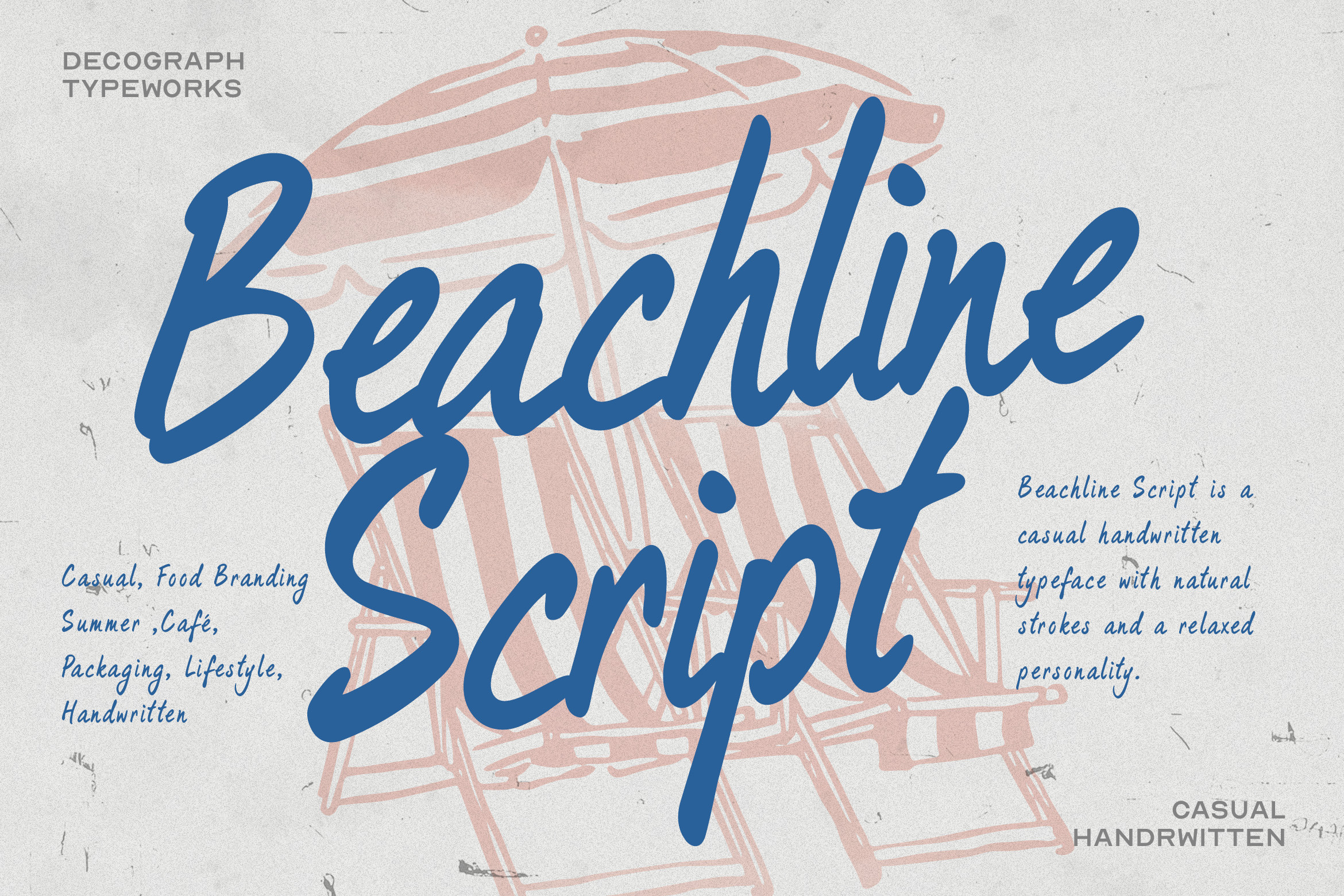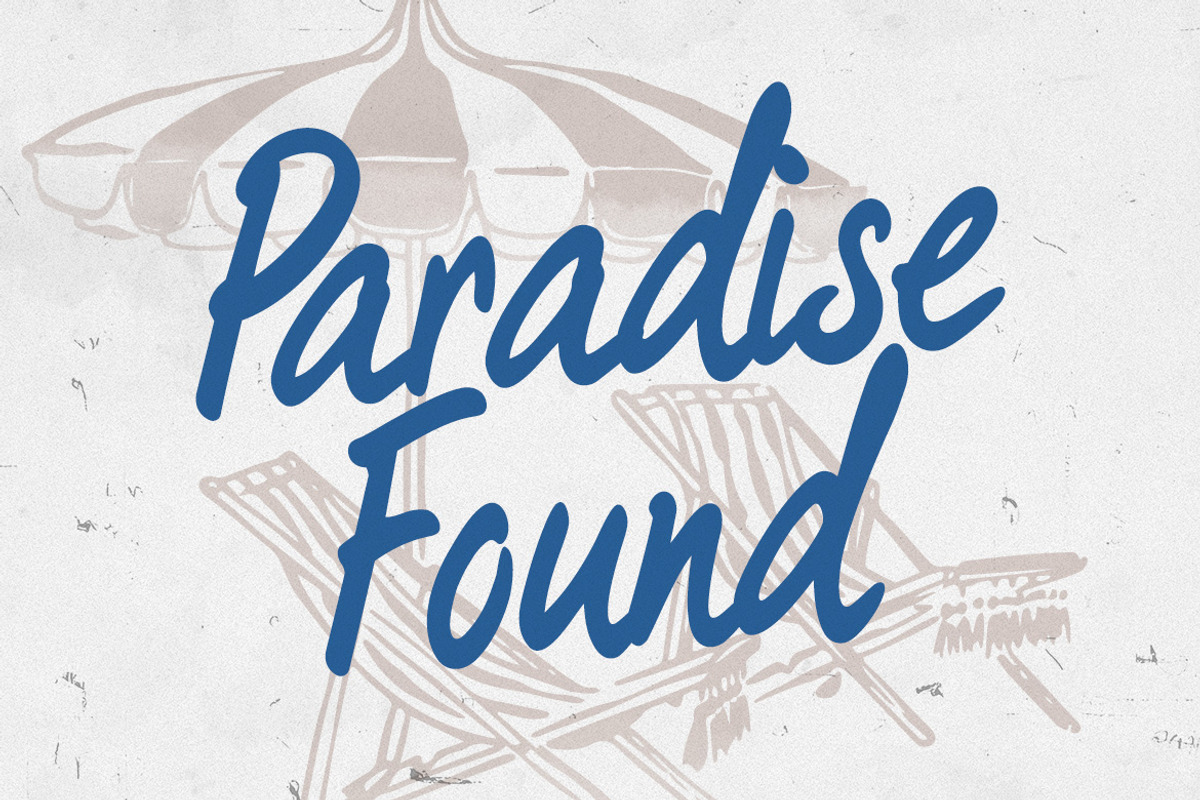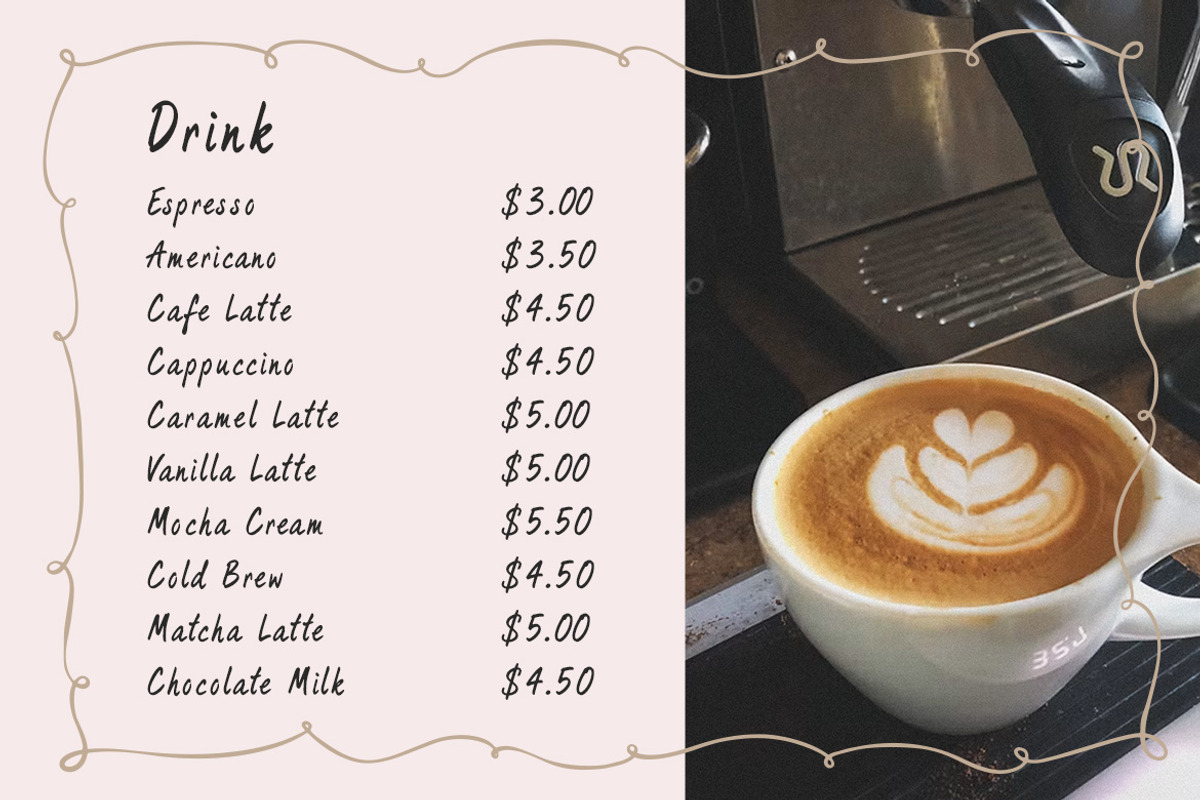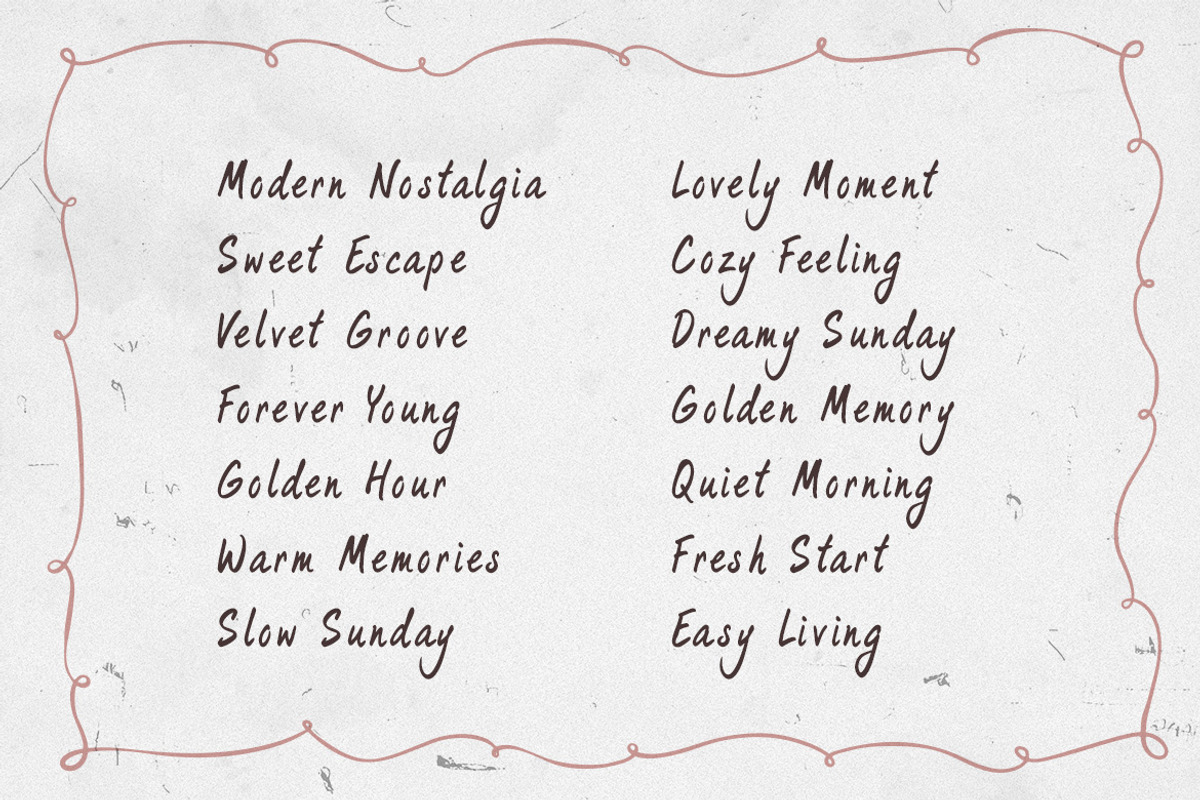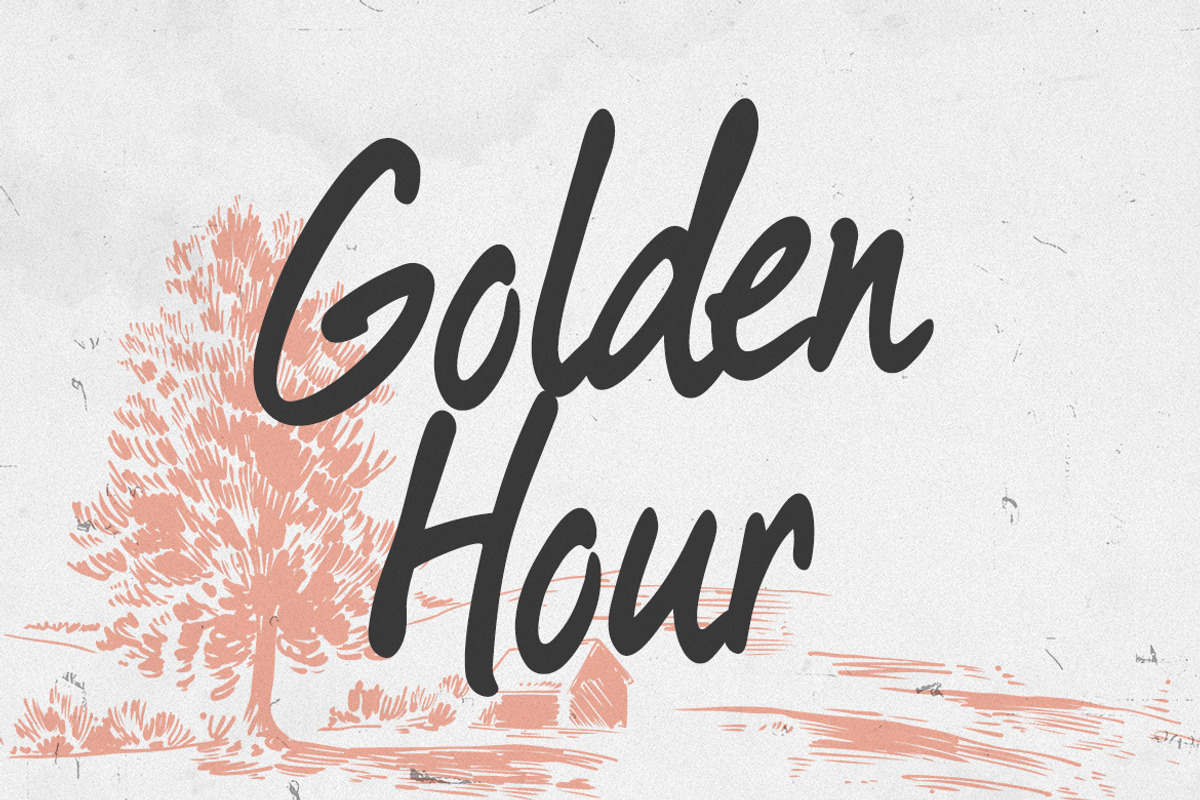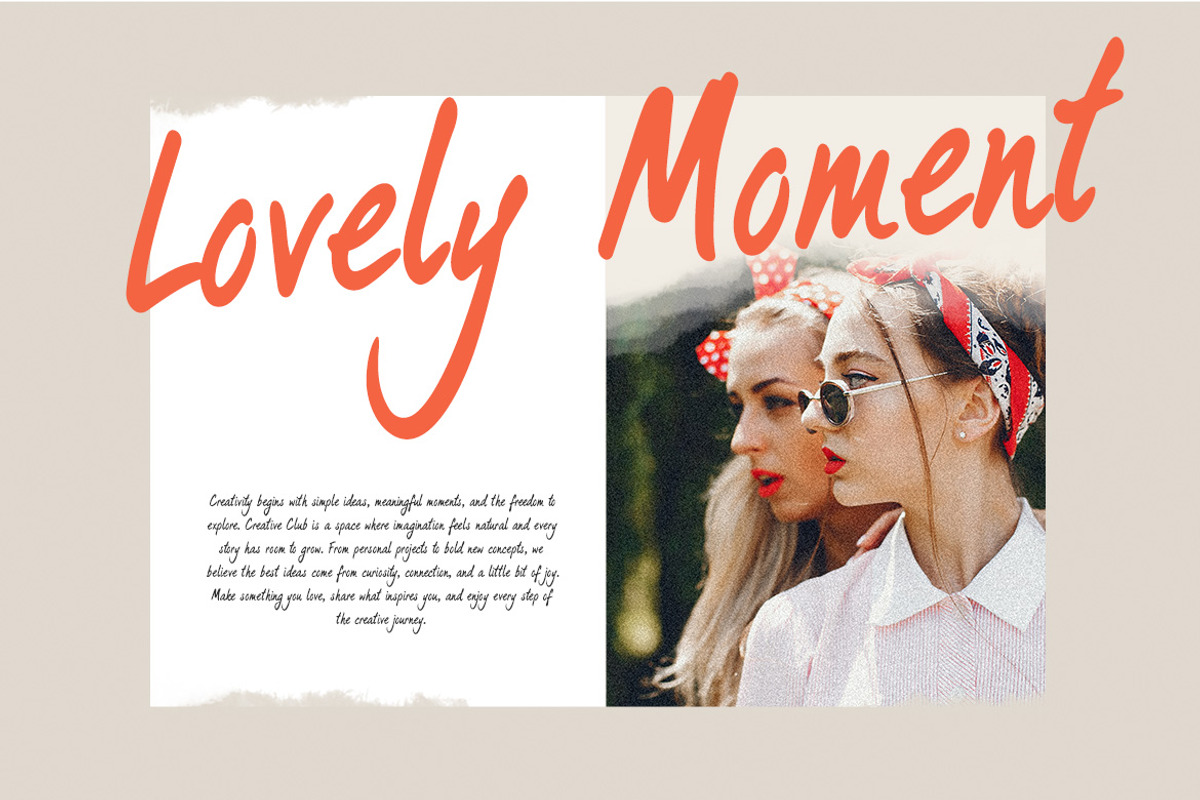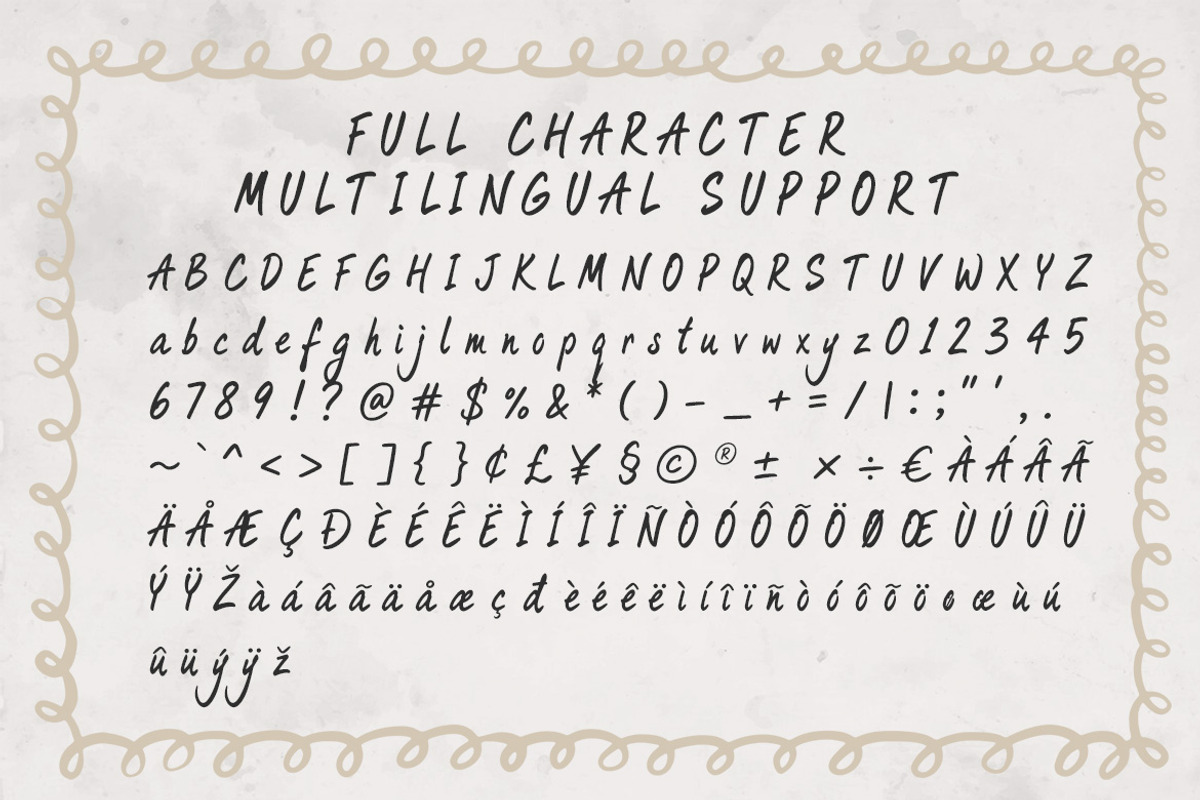
Beachline Script – Casual Font
Beachline Script is a casual handwritten typeface that combines fluid brush-like strokes with naturally flowing letterforms, featuring rounded terminals, open curves, and subtle variations in width that create an easygoing handwritten rhythm. Its connected script construction and gentle forward movement give the font a personal, relaxed character while maintaining clear shapes at display sizes. Designed for food branding, cafe identities, summer packaging, lifestyle graphics, posters, social media, and travel-inspired designs, Beachline Script delivers a warm visual personality that feels casual, breezy, friendly, and naturally expressive.
Smooth Kerning